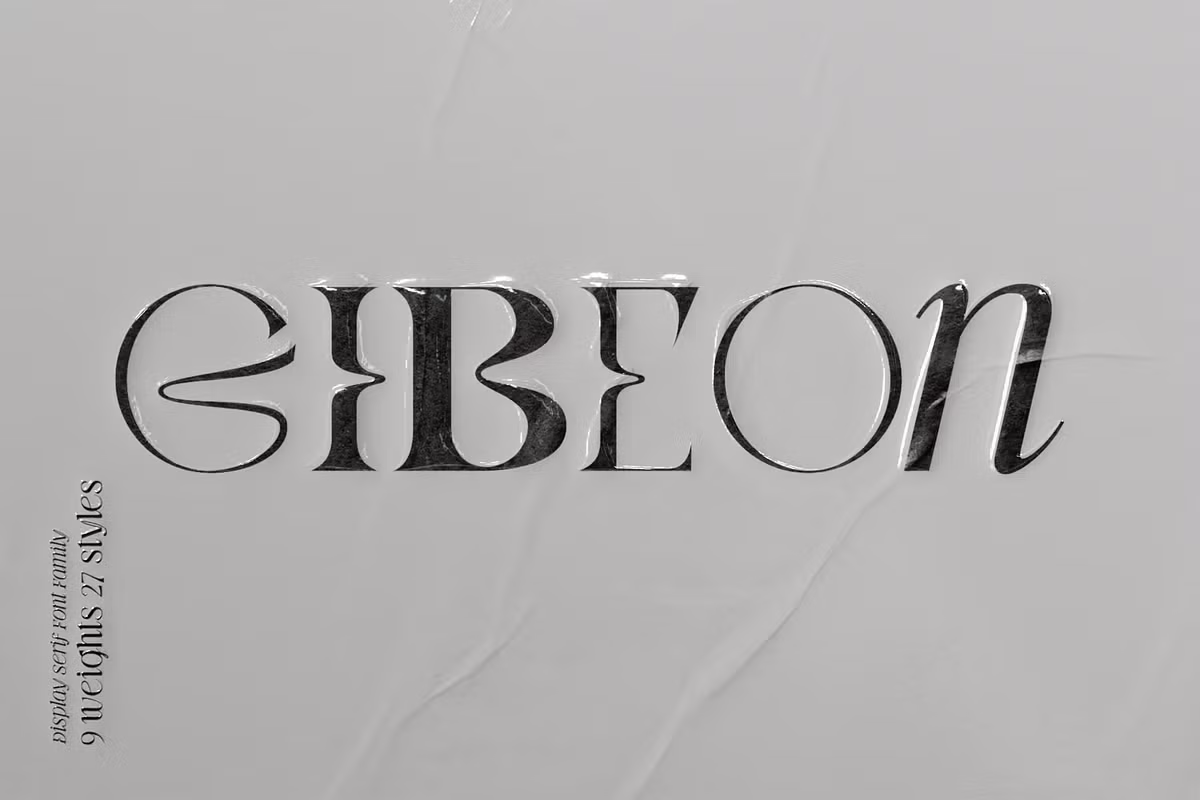
GIBEon Display Serif Family Font Free Download is a sophisticated and versatile typeface family designed to bring boldness and elegance to your designs. Featuring multiple weights and styles, this display serif family is perfect for high-end branding, editorial design, logos, headlines, and more.
The GIBEon font family combines clean, modern serifs with high contrast and unique proportions, making it ideal for projects that need to make a statement while maintaining readability. Whether you're working on a professional brand identity, luxury marketing materials, or creative editorial layouts, this family provides flexibility and style.
Elevate your designs with the modern elegance and bold appeal of GIBEon! ✨